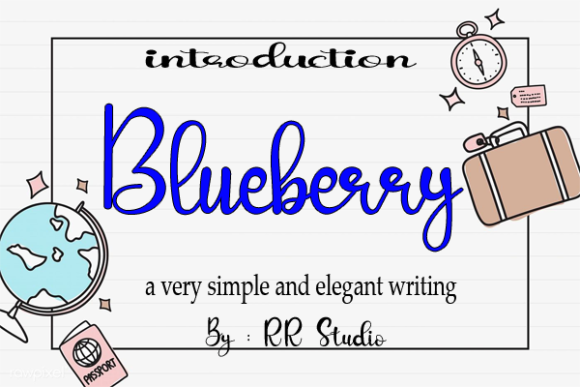
Blueberry Font
About Blueberry Font
Blueberry is a ravishing and versatile handwritten font that has a wide spectrum of applications. You can use it on different kinds of designs, from greeting cards to headlines and social media posts. It will guarantee you a sweet romantic feel for your next project.